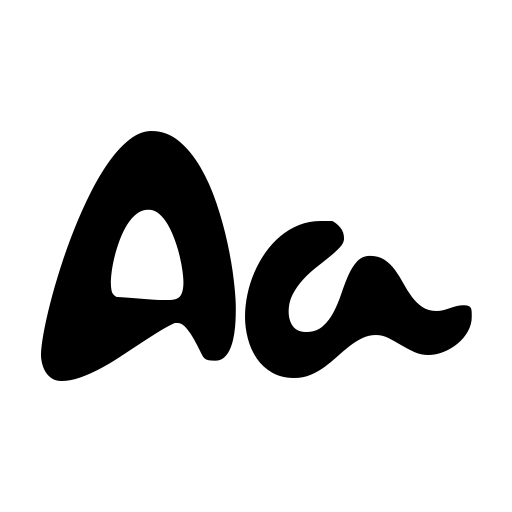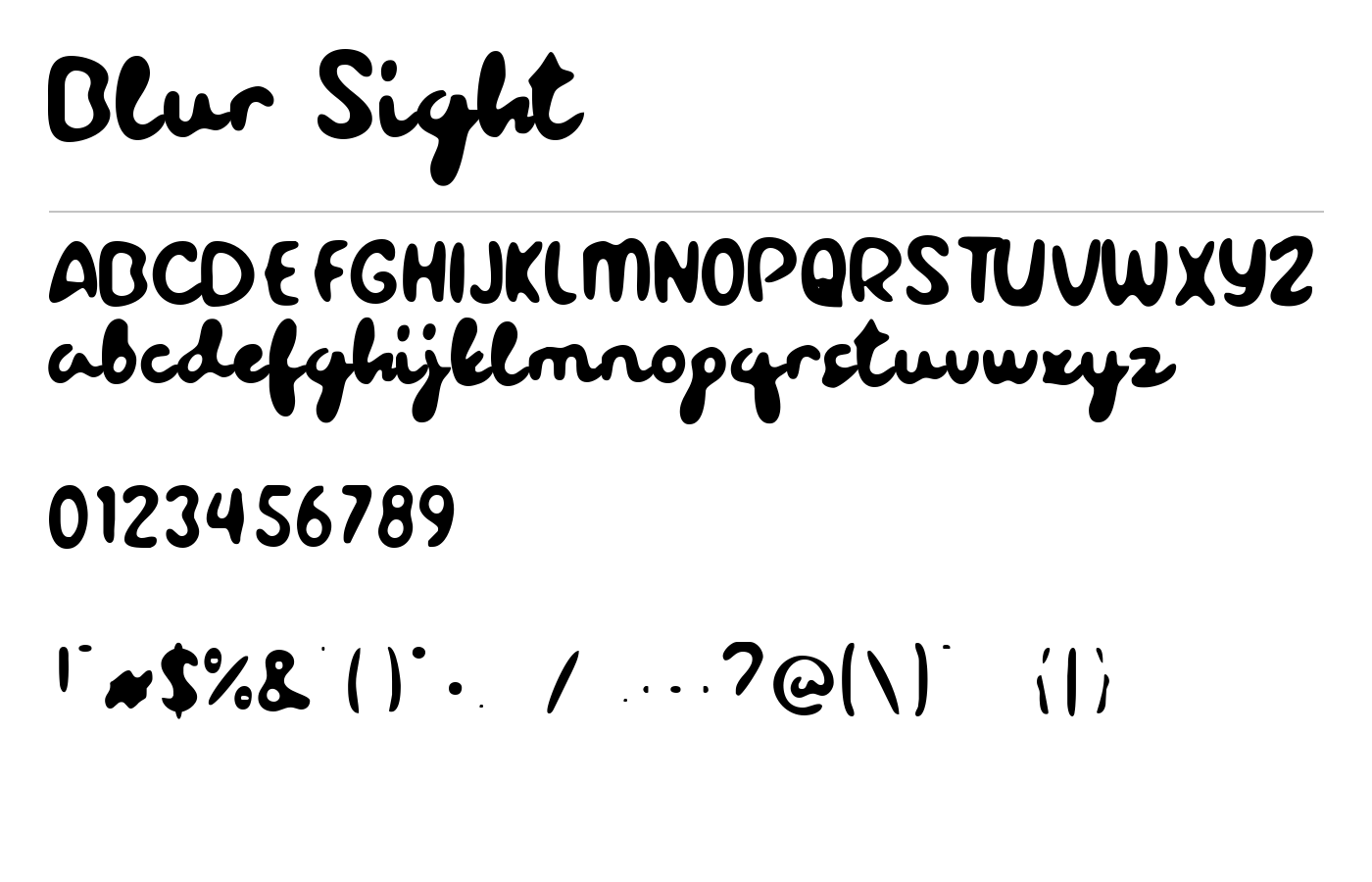
Blur Sight is a playful, casual handwritten font with a bold, rounded style that feels approachable and lively. Its uneven, organic letterforms with varied stroke widths give it a friendly, informal vibe, making it ideal for creative projects, children’s materials, and fun branding. This font works well in logos, posters, and headlines where a personal, expressive touch is desired.
Blur Sight Font
About Blur Sight Font
| Font family | Blur Sight Font |
| Designer | Lettersiro 2018 |